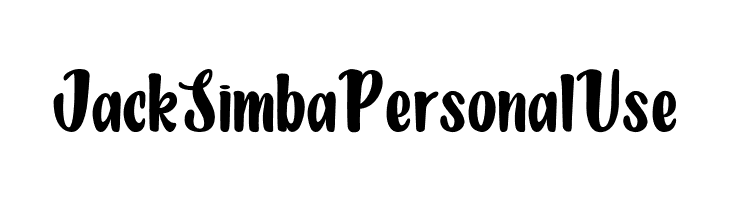
A bold, playful script font with a handwritten feel.
A playful, handwritten font with smooth, rounded edges and a friendly appearance.
A playful, handwritten script font with smooth, fluid strokes.
A playful, handwritten font with bold strokes and a lively, dynamic style.
A bold, expressive script font with flowing, cursive letterforms.
A playful, bold script font with a handwritten feel.
A playful and energetic script font with flowing, cursive letterforms.
A playful, handwritten script font with bold, slanted characters.